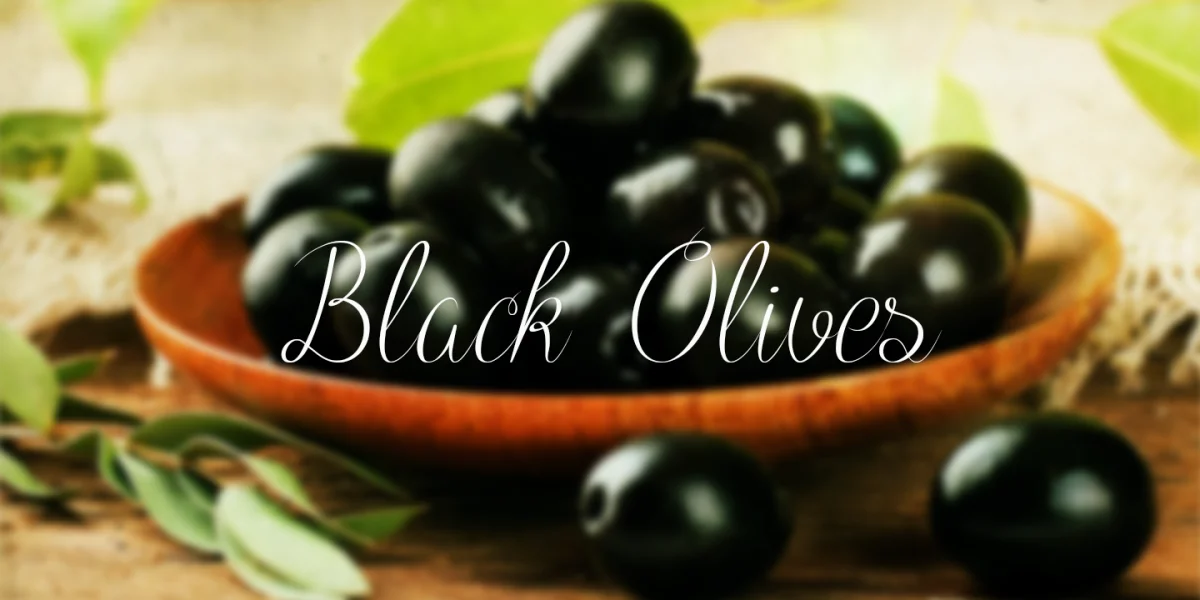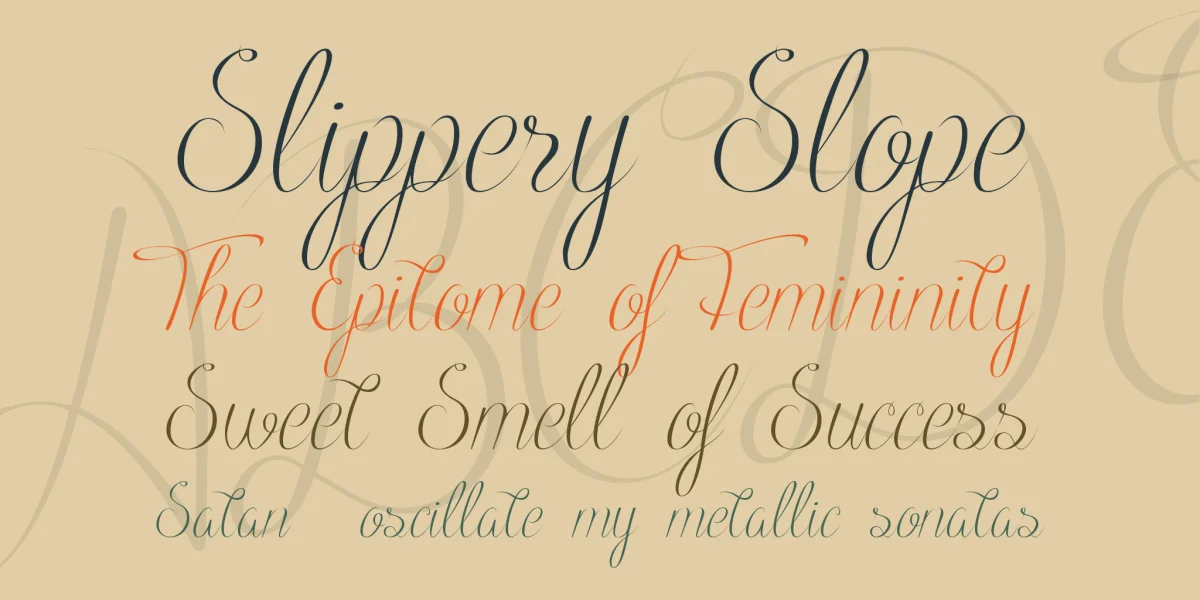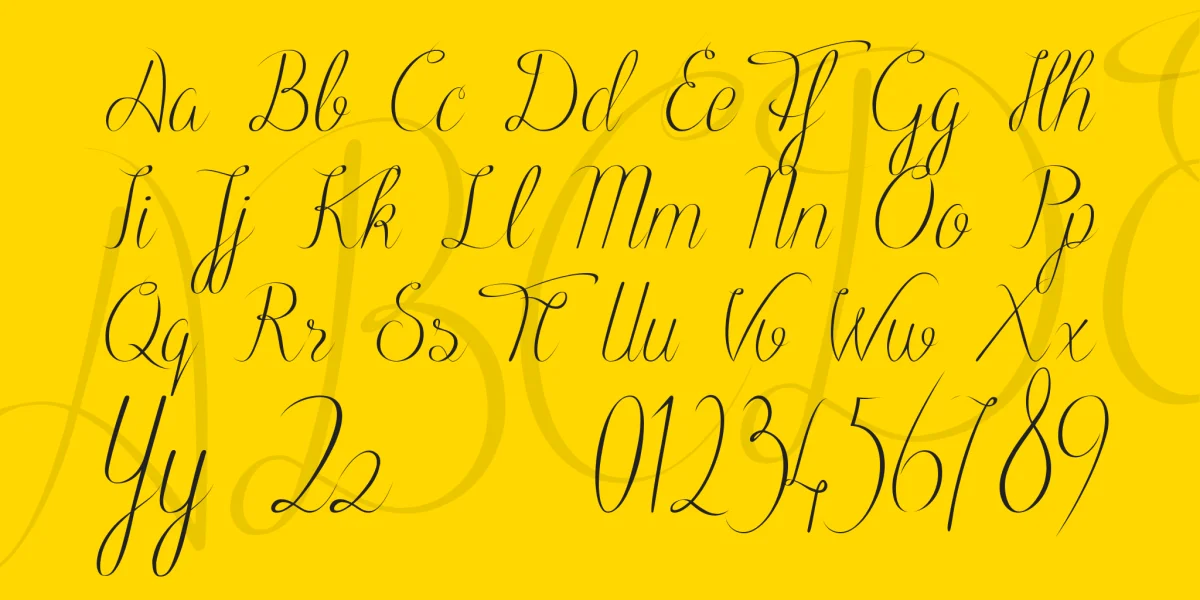
BLACK OLIVES is a script calligraphy font experiment. This font free for PERSONAL use only. For any commercial use (anything you make money from), you must make a paypal donation.